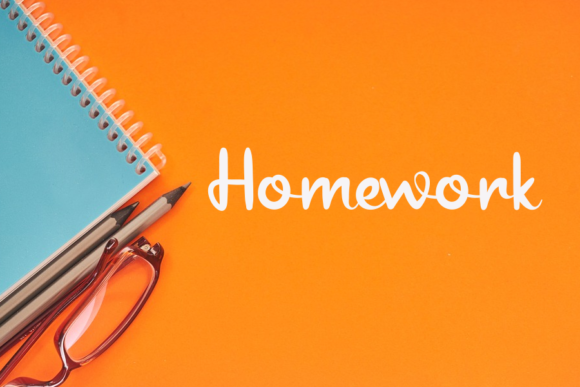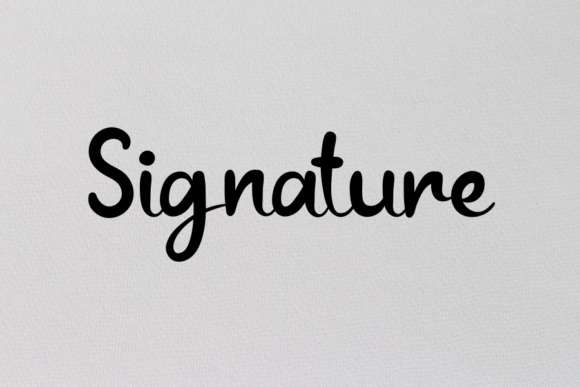
Halloween Teacher Font
db-ku.com - Script & Handwritten -- Halloween Teacher is a sweet and friendly handwritten font. Its natural and unique style makes it incredibly fitting to a large pool of designs. The only limit is your imagination!